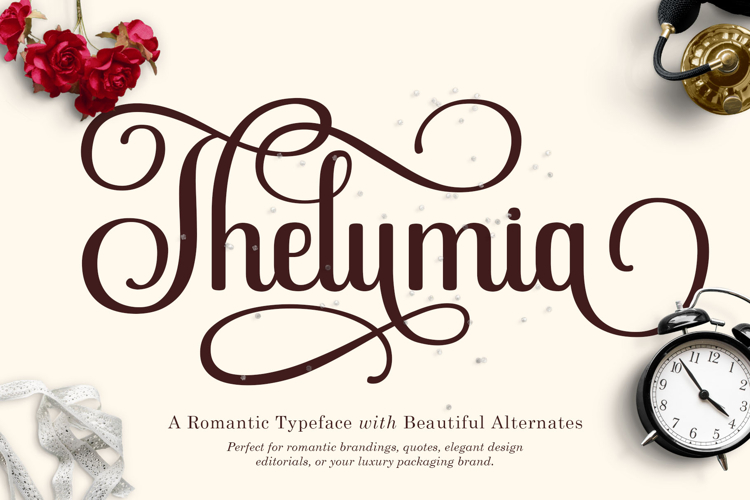
Elevate your designs with Thelumia, a breathtakingly elegant serif typeface meticulously crafted for romance, luxury, and timeless sophistication. Infused with a modern yet classic charm, this font is engineered to bring fluid motion and artistic flair to your typography.
Thelumia stands out with its massive library of alternate characters, offering a staggering range of Stylistic Sets from ss01 to ss15. This allows you to completely transform individual letters, customizing the rhythm and flow of every word. Packed with beautiful, seamless ligatures and dramatic, sweeping swashes, it gives you the power to create bespoke lettering that looks entirely hand-drawn and high-end.
Whether you are crafting deeply emotional romantic quotes, designing luxurious wedding invitation suites, branding high-fashion labels, or creating eye-catching movie posters, Thelumia injects a poetic, premium aesthetic into every layout.
Features ;
- SS01-SS15
- Ligature
- Swash
- Full set of standard uppercase, lowercase, numbers, and punctuation